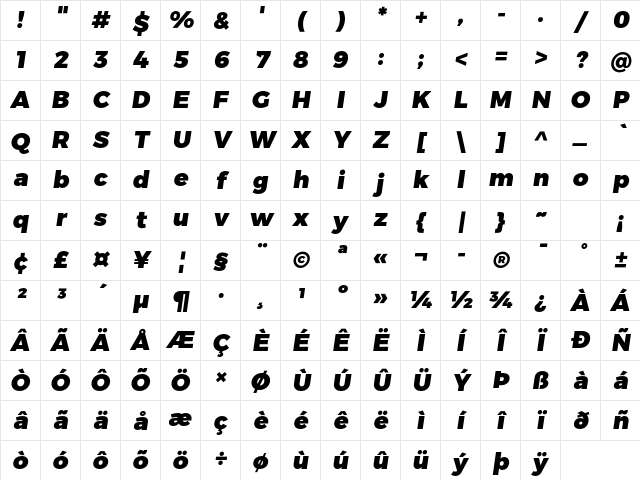
Trueno Black Italic
Foundry: Julieta Ulanovsky
Designer: Julieta Ulanovsky
Design Context for Trueno
Trueno is a composed and adaptable typeface that performs quietly and consistently across a wide range of design contexts. The slanted form adds forward momentum and visual energy.
Pro Tip: Use Trueno for emphasis, pull quotes, and subheadings where its slanted energy can add rhythm to the layout.
Who designed the Trueno Black Italic font?